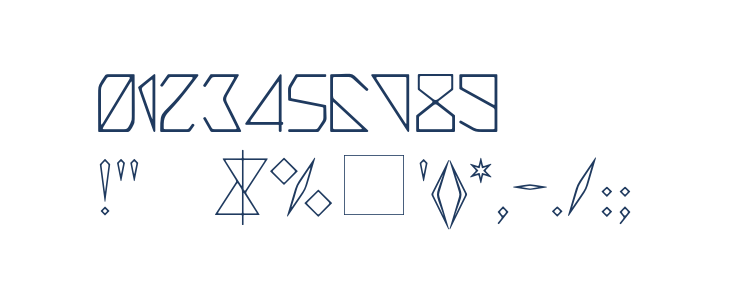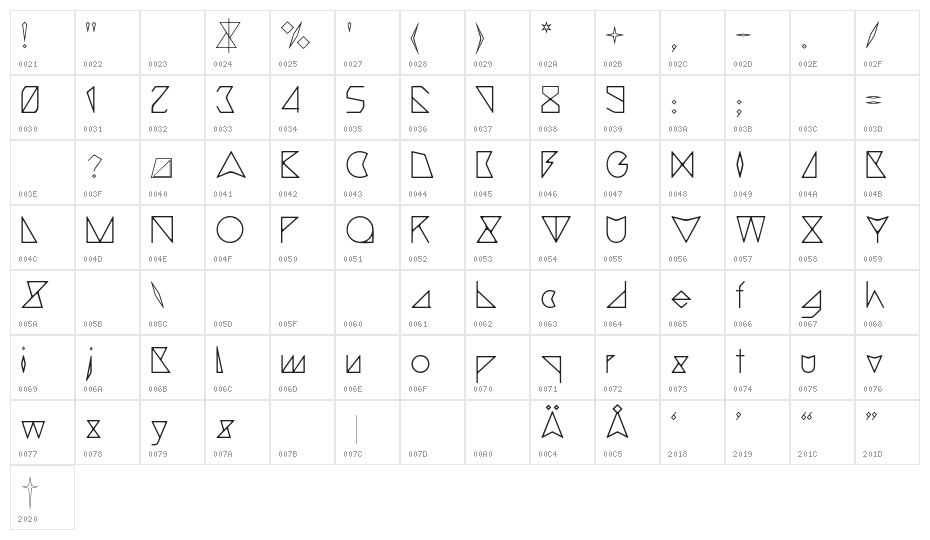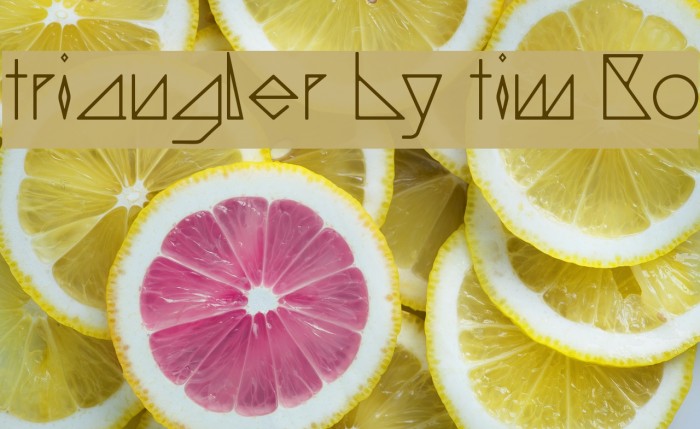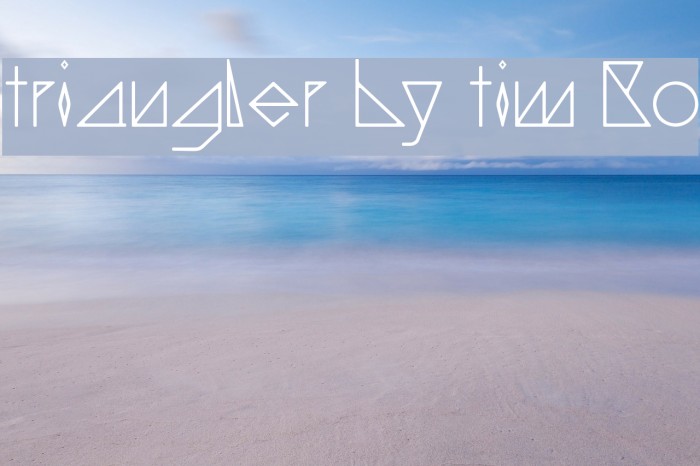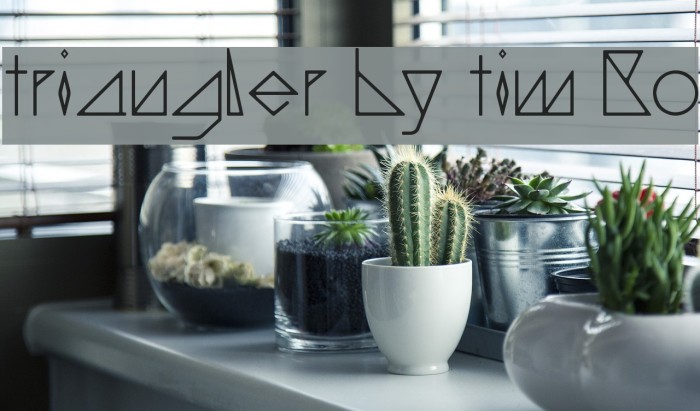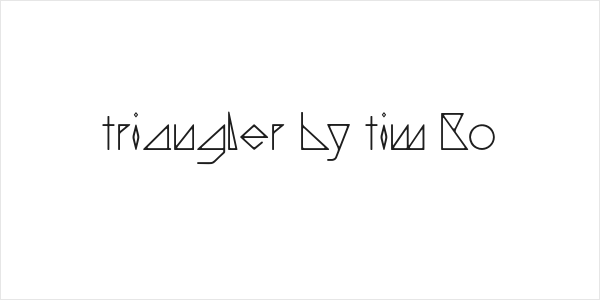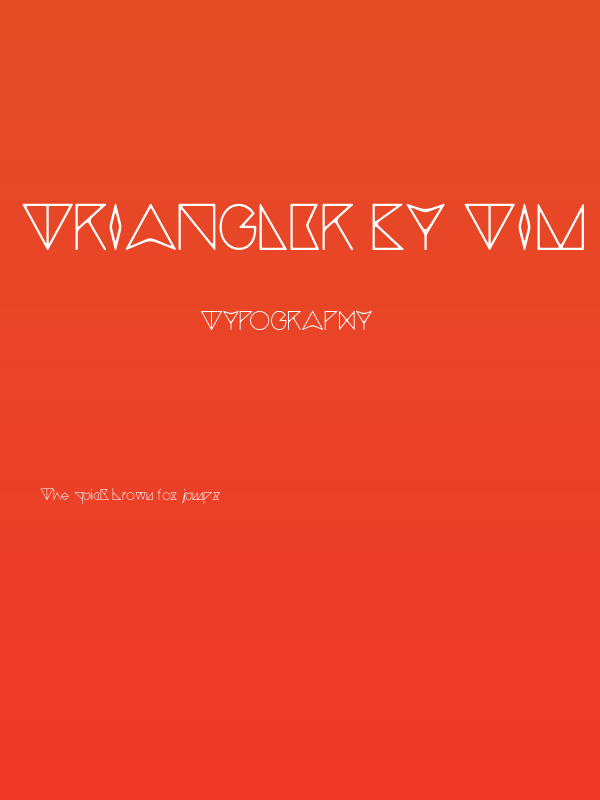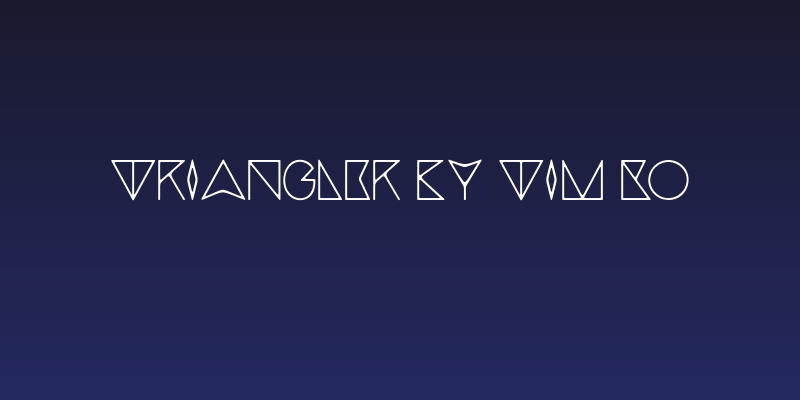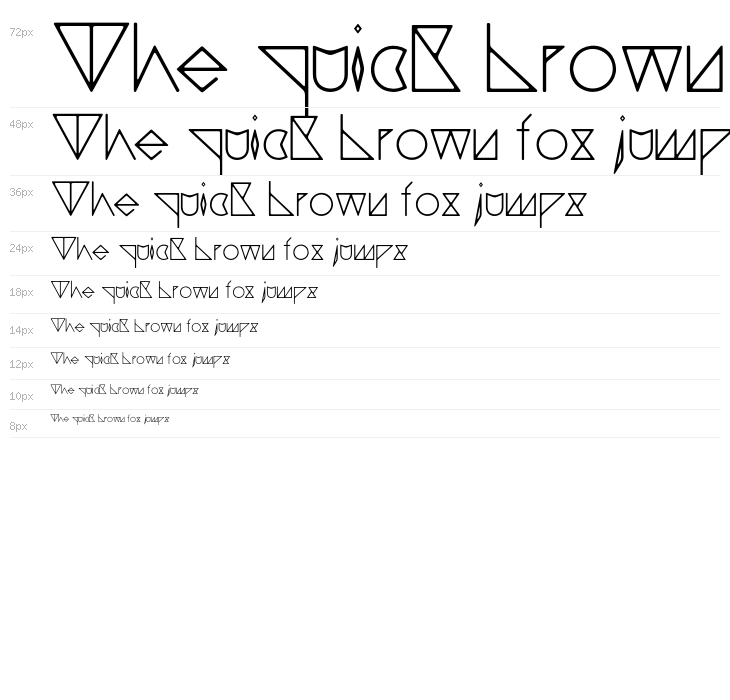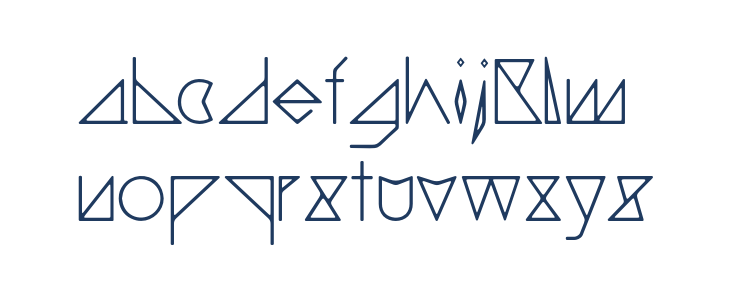
triangler by tim ko Font
triangler by tim ko Description
This font features a unique geometric style characterized by sharp angles and triangular shapes. Each character is constructed with a series of straight lines, giving it a futuristic and abstract appearance. The uppercase letters are bold and striking, while the lowercase letters maintain the same angular design, offering a cohesive look. Numbers and special characters follow the same design principles, ensuring consistency across the font. The overall aesthetic is modern and edgy, making it suitable for projects that require a distinctive and unconventional typeface.